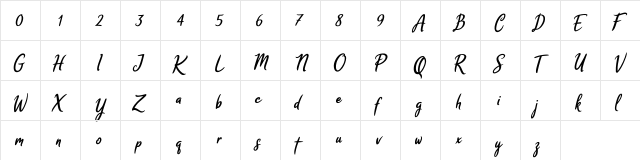
Melodya Chatrina Italic Font Preview
Design Context for Melodya Chatrina Italic Typeface
Melodya Chatrina Italic is a composed and adaptable typeface that performs quietly and consistently across a wide range of design contexts. Its italic angle brings a sense of urgency and motion to the letterforms.
Pro Tip: Use Melodya Chatrina Italic for emphasis, pull quotes, and subheadings where its slanted energy can add rhythm to the layout.